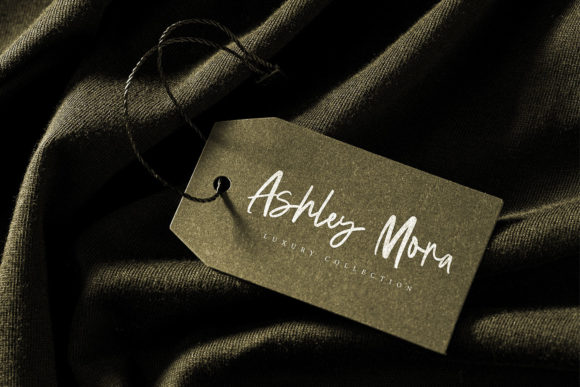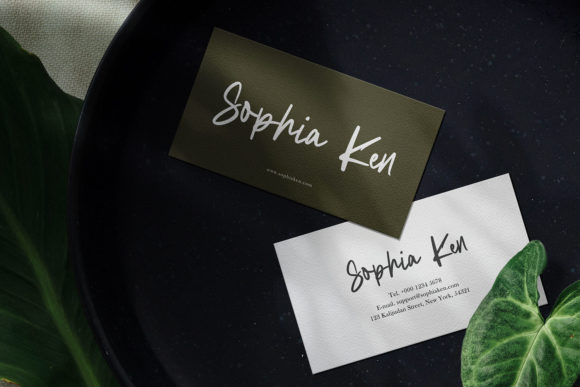
La Amosta Font
db-ku.com - Script & Handwritten -- La Amosta is a relaxed and casual handwritten font, with a natural & stylish flow. This font is PUA encoded which means you can access all of the glyphs and swashes with ease! Add it confidently to your projects, and you will love the results.